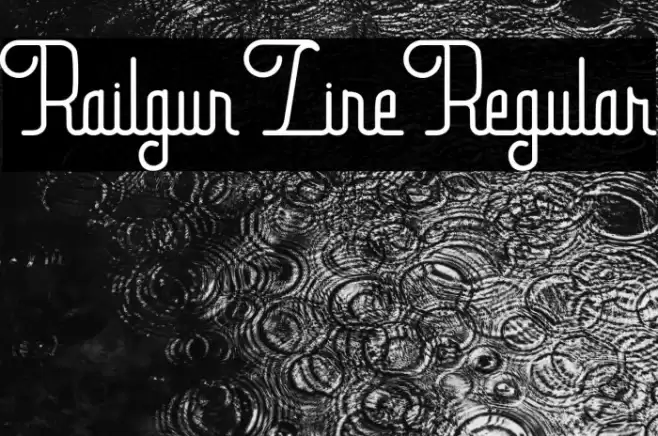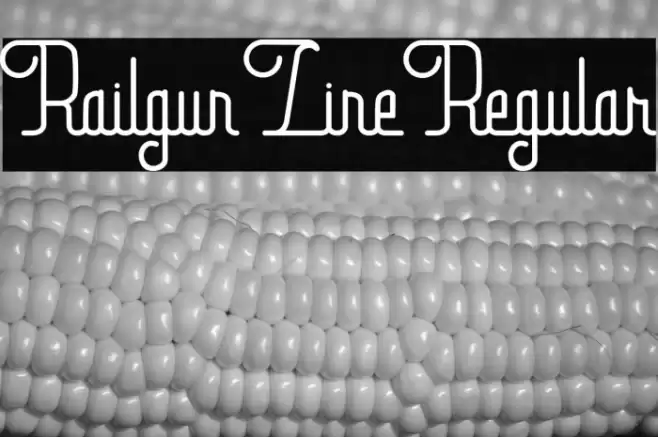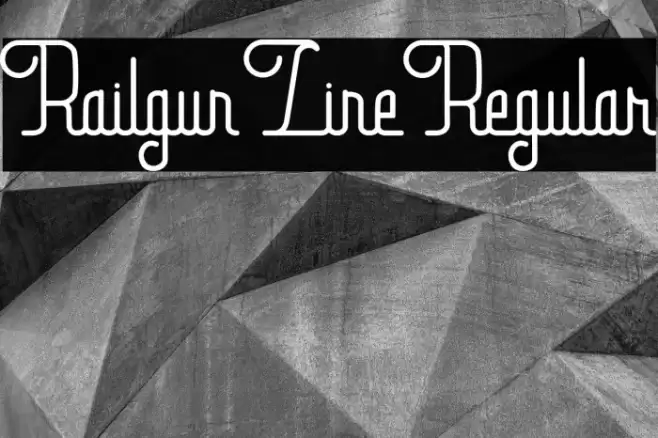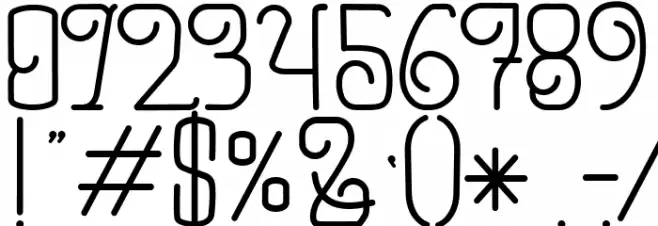
Railgun Line Regular Font
Railgun Line Regular Description
This font features a unique and modern design with a playful twist. The characters are formed with continuous, flowing lines that give it a connected and cohesive appearance. Uppercase and lowercase letters maintain a consistent style, with rounded edges and smooth curves that add a sense of fluidity. The numerals and special characters are designed to match the overall aesthetic, ensuring uniformity across all glyphs. This font's distinctive style makes it stand out, offering a blend of elegance and creativity that is suitable for various design projects.
A modern, playful font with continuous, flowing lines and rounded edges from Regular fonts.
- Font: Railgun Line Regular
- Proposed Projects: Ideal for creative branding, logo design, invitations, and modern web design.
- Use Case: Logos, Headlines, Invitations